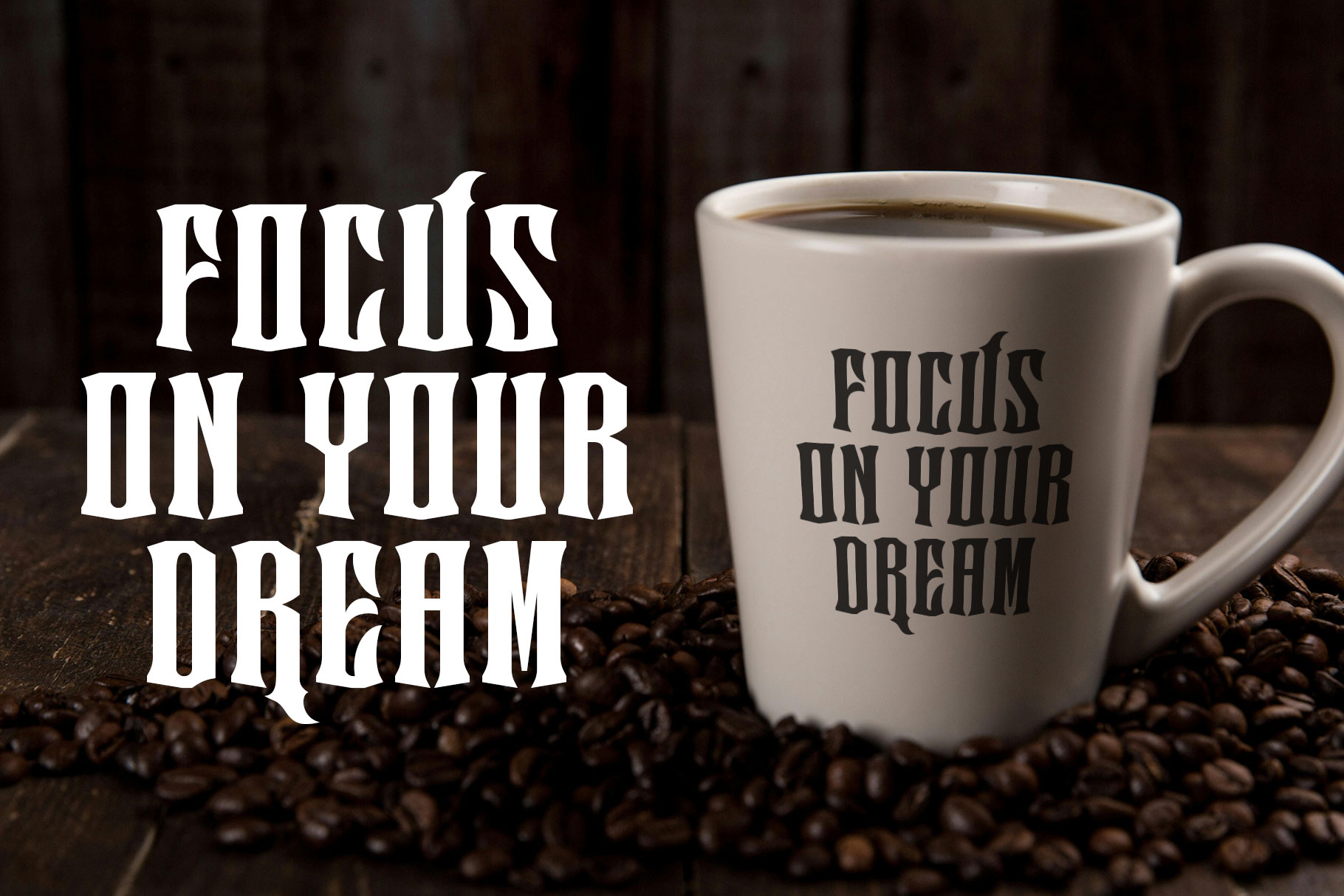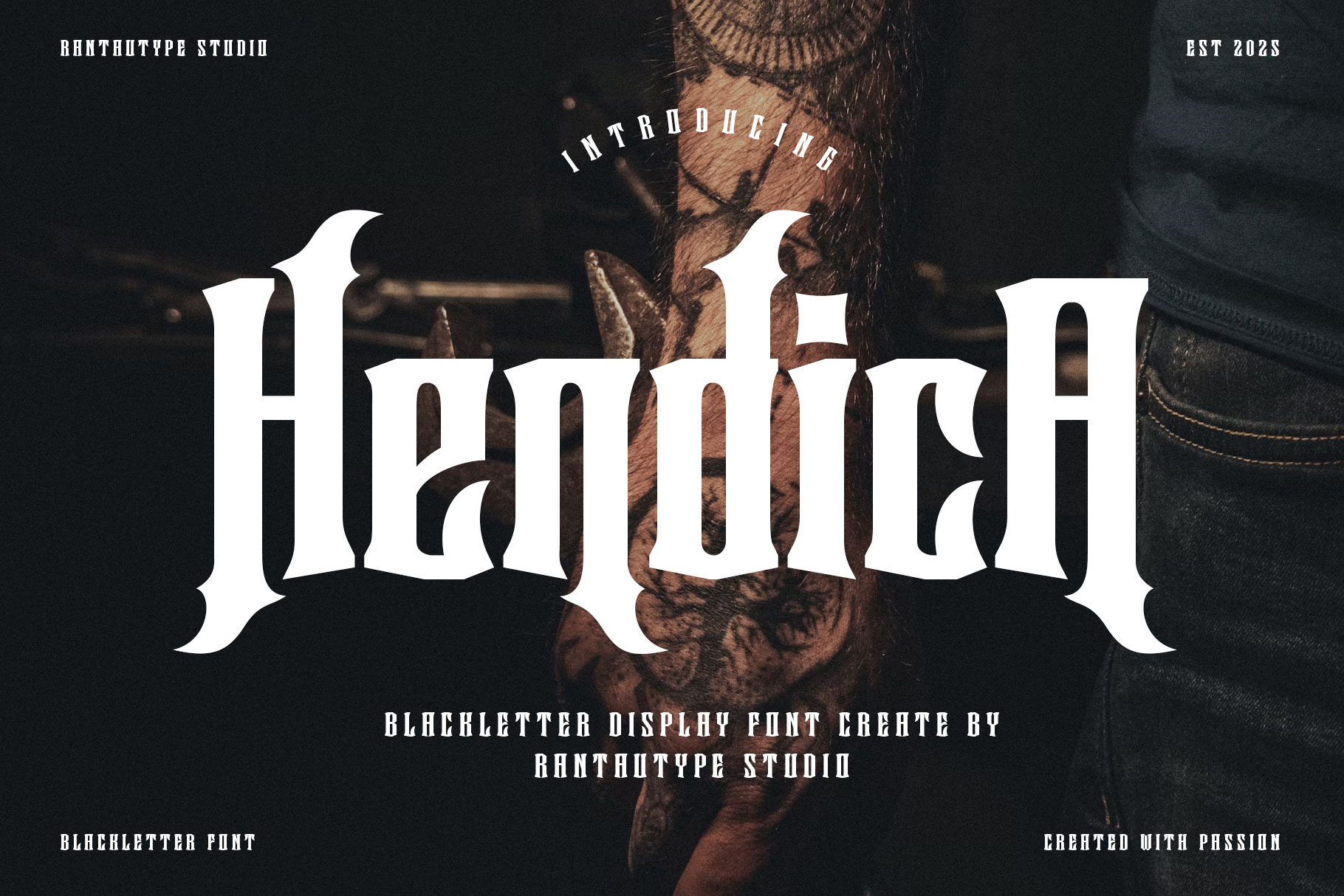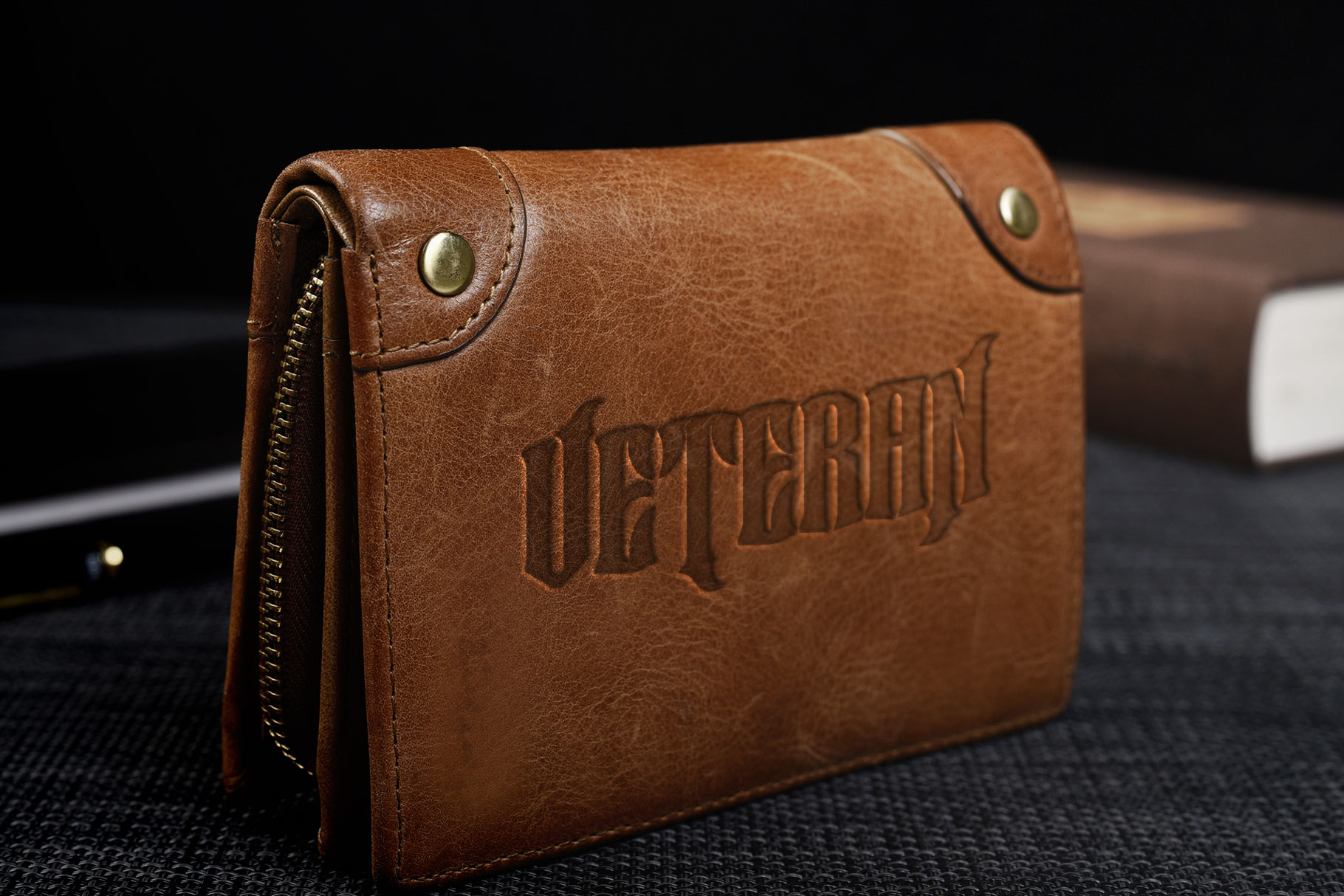
Hendica Blackletter Display Font
Hendica is blackletter font inspire by simple antique style. antique is a perfectly choice for any creative endeavor, lifestyle design such as logotype, advertisements, watermark on photography, stationery, branding project, display and magazine, invitation, corporate brand, product design, label, business project and many other project with medievel touch.